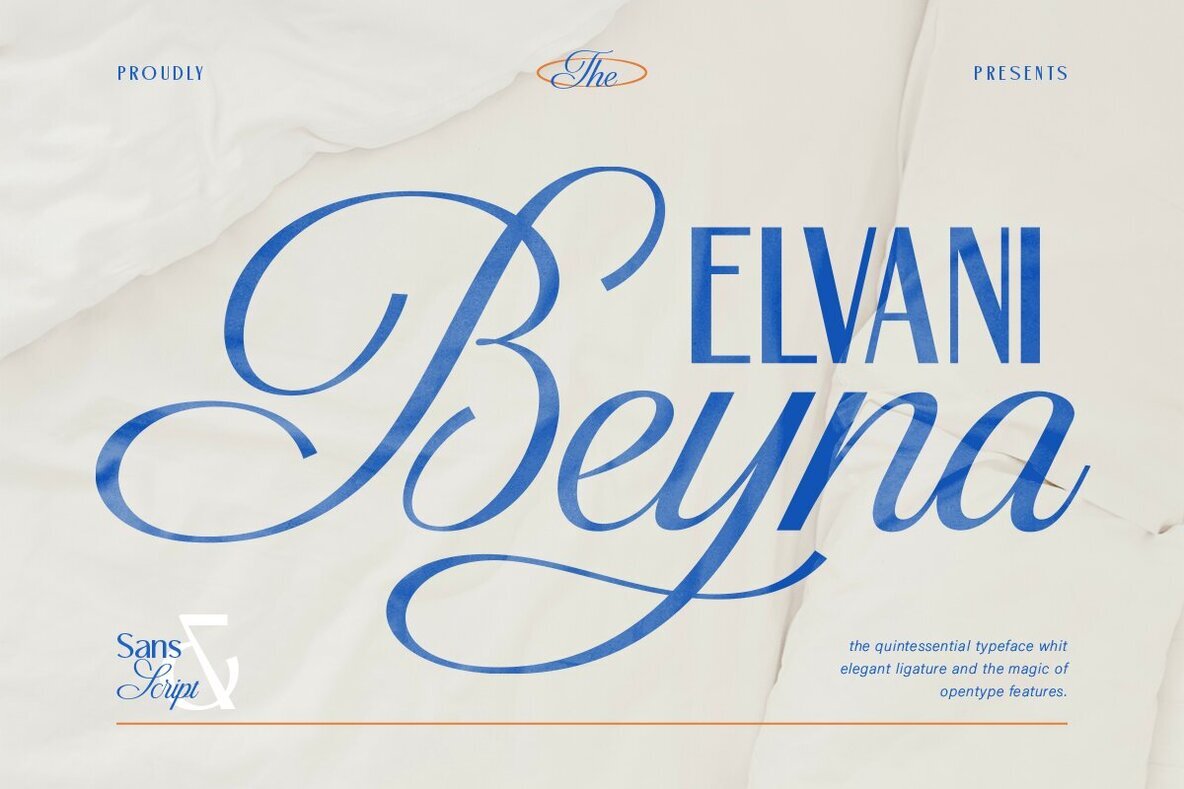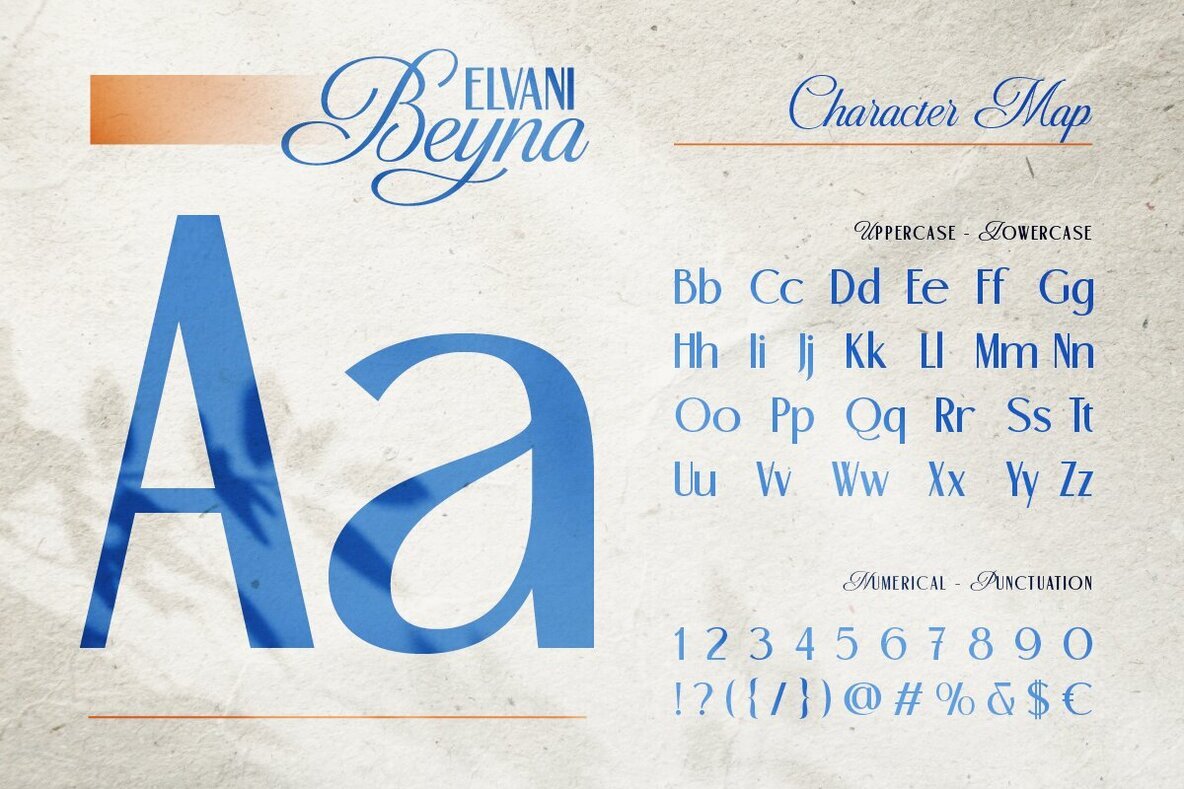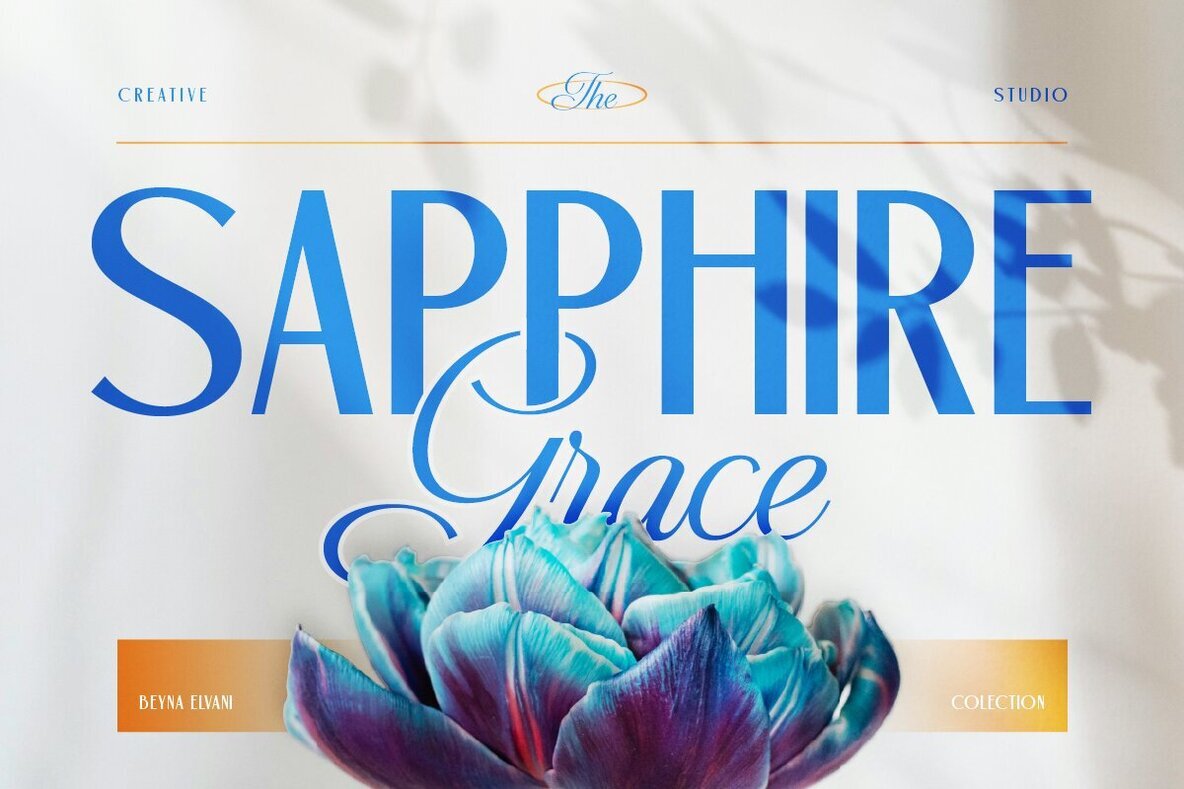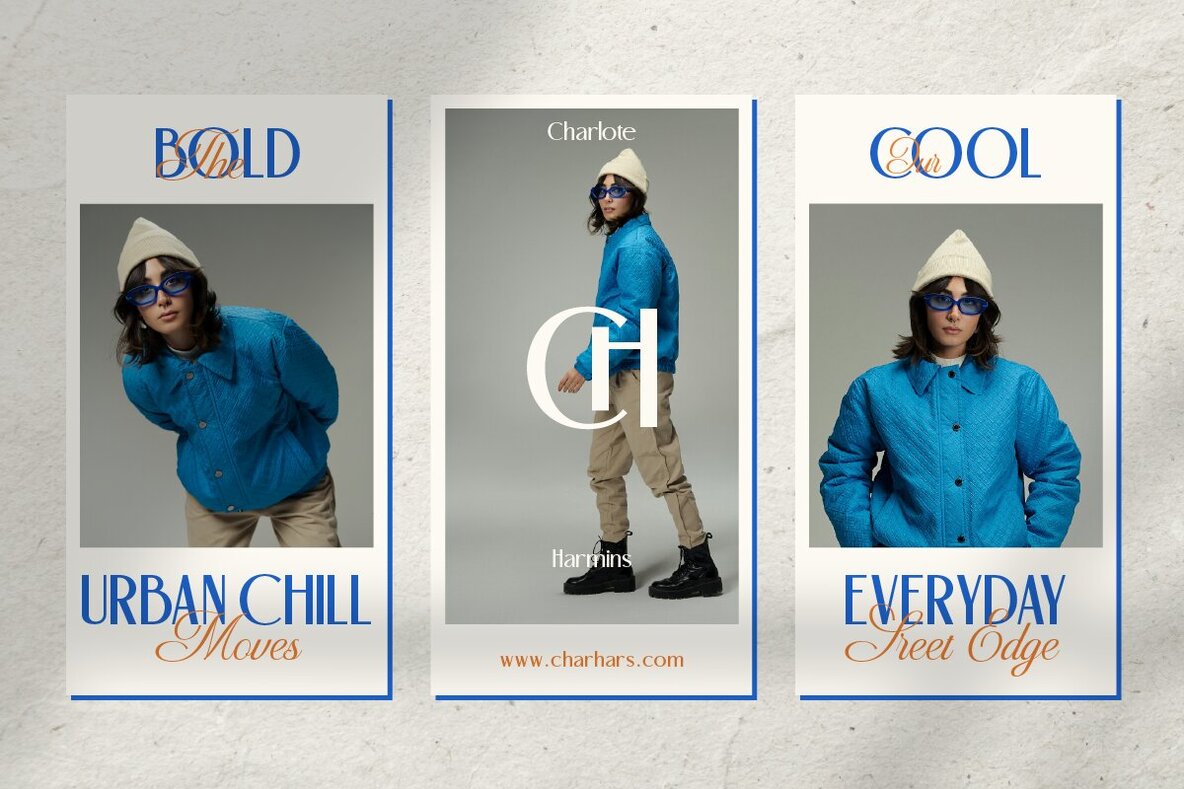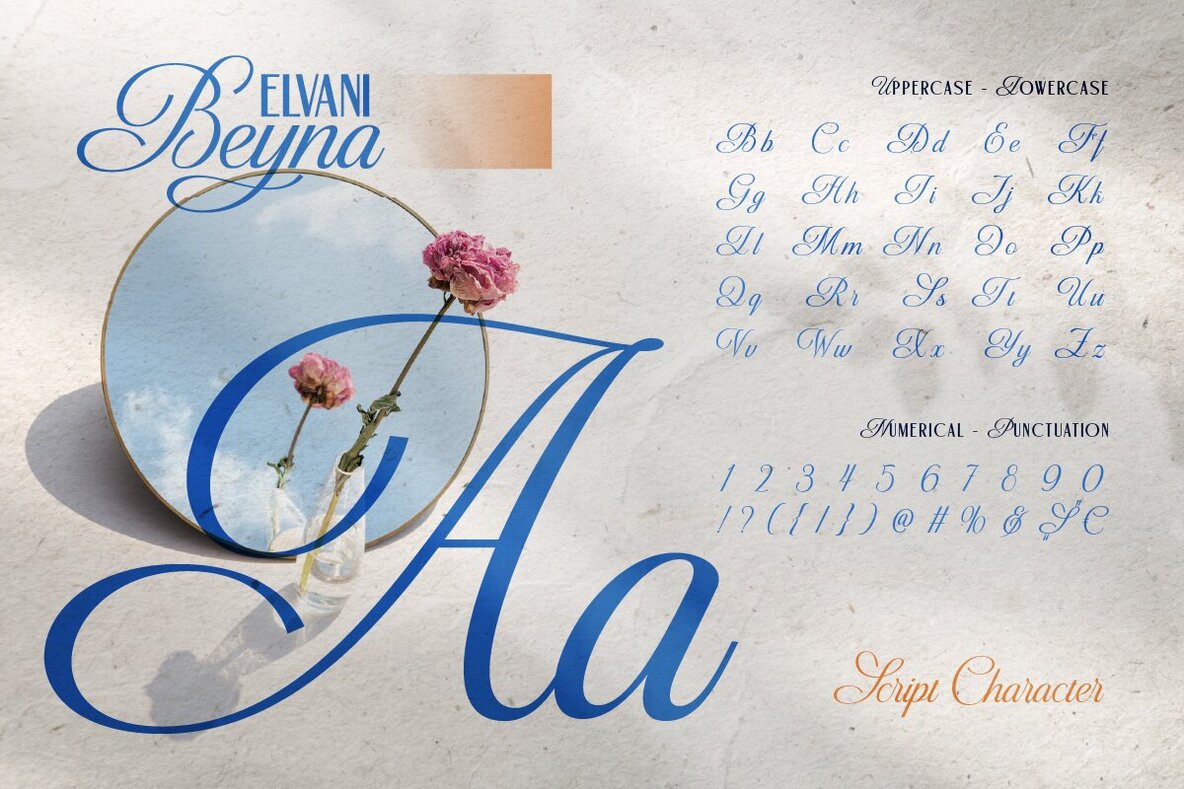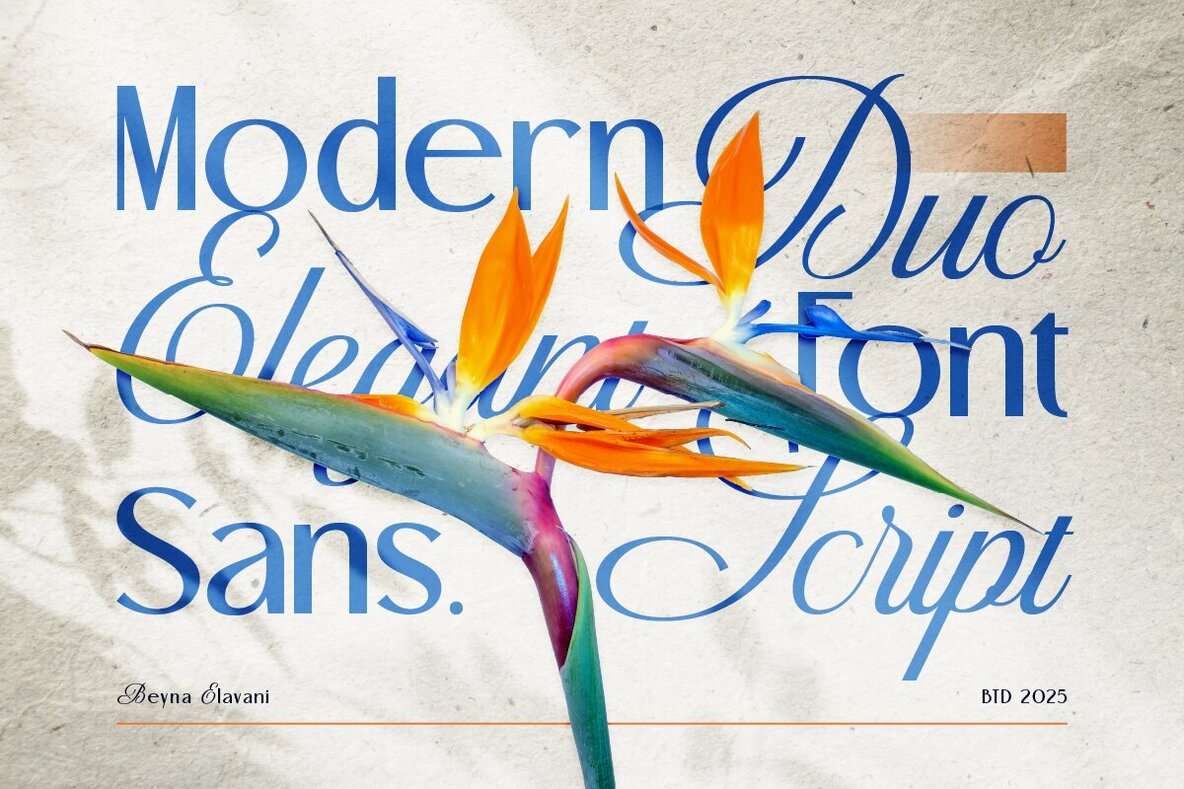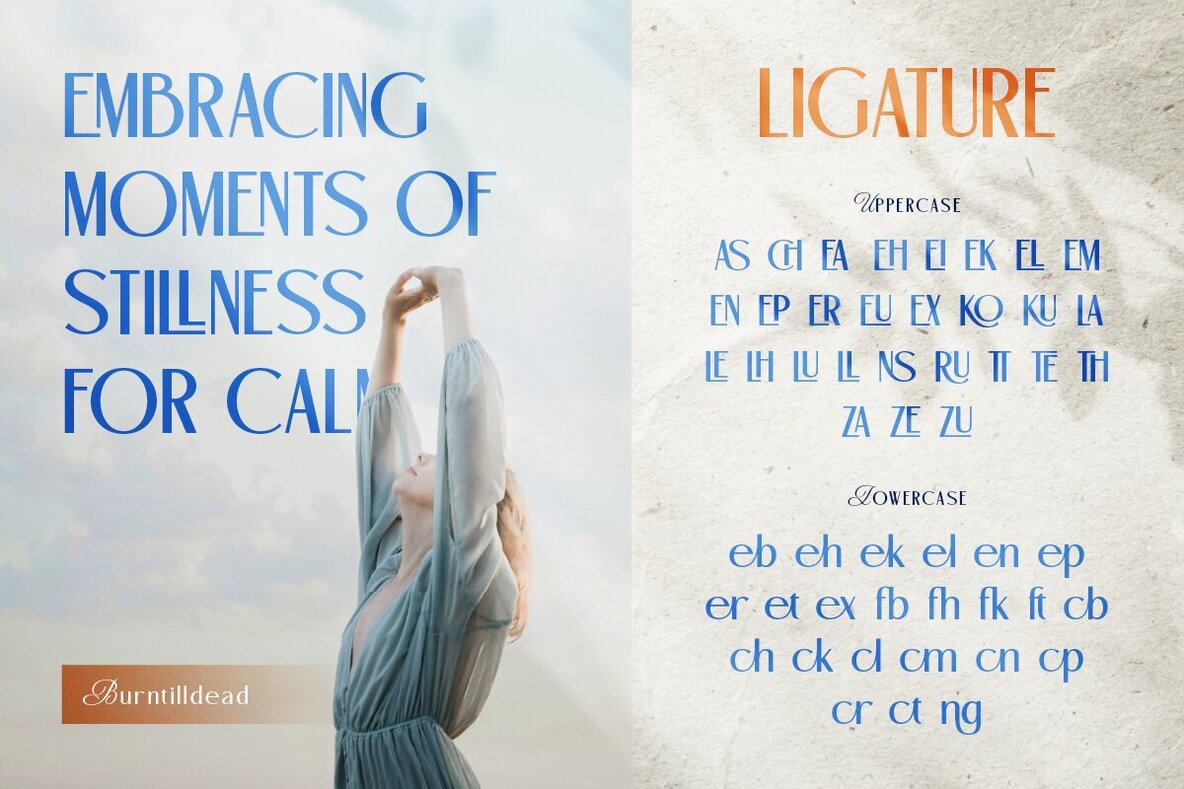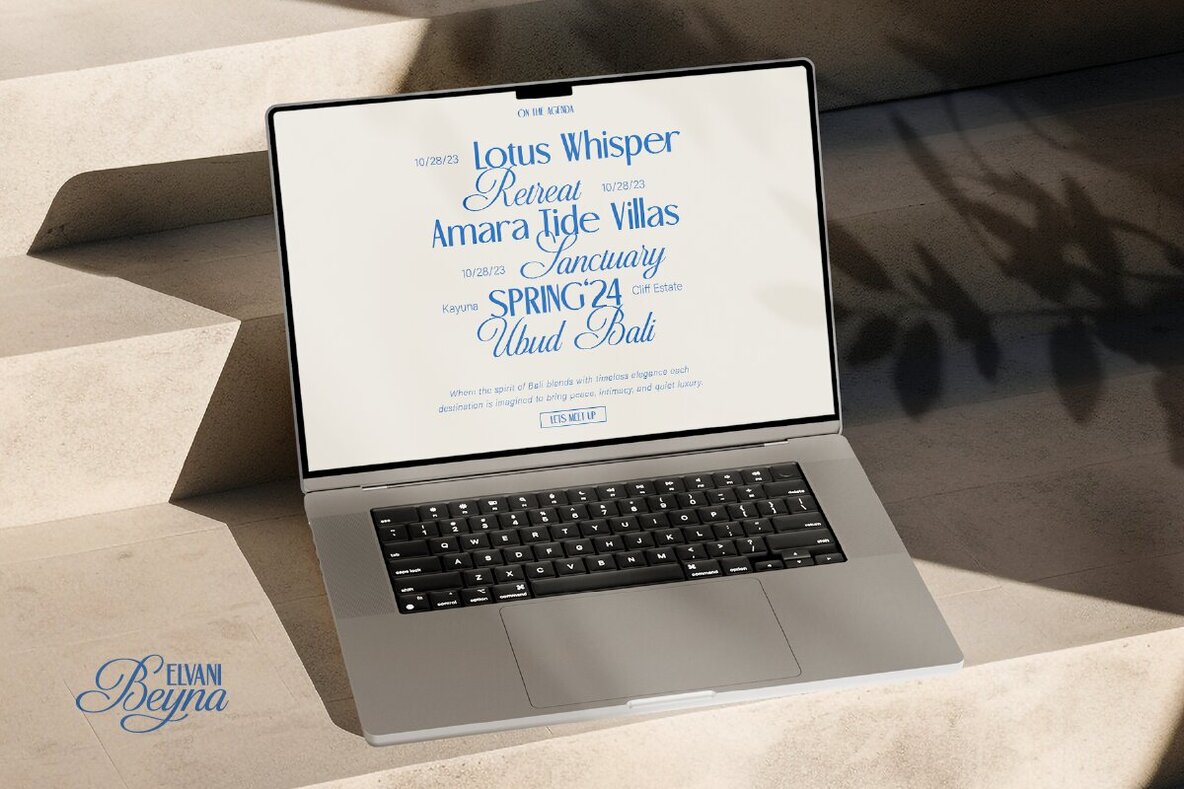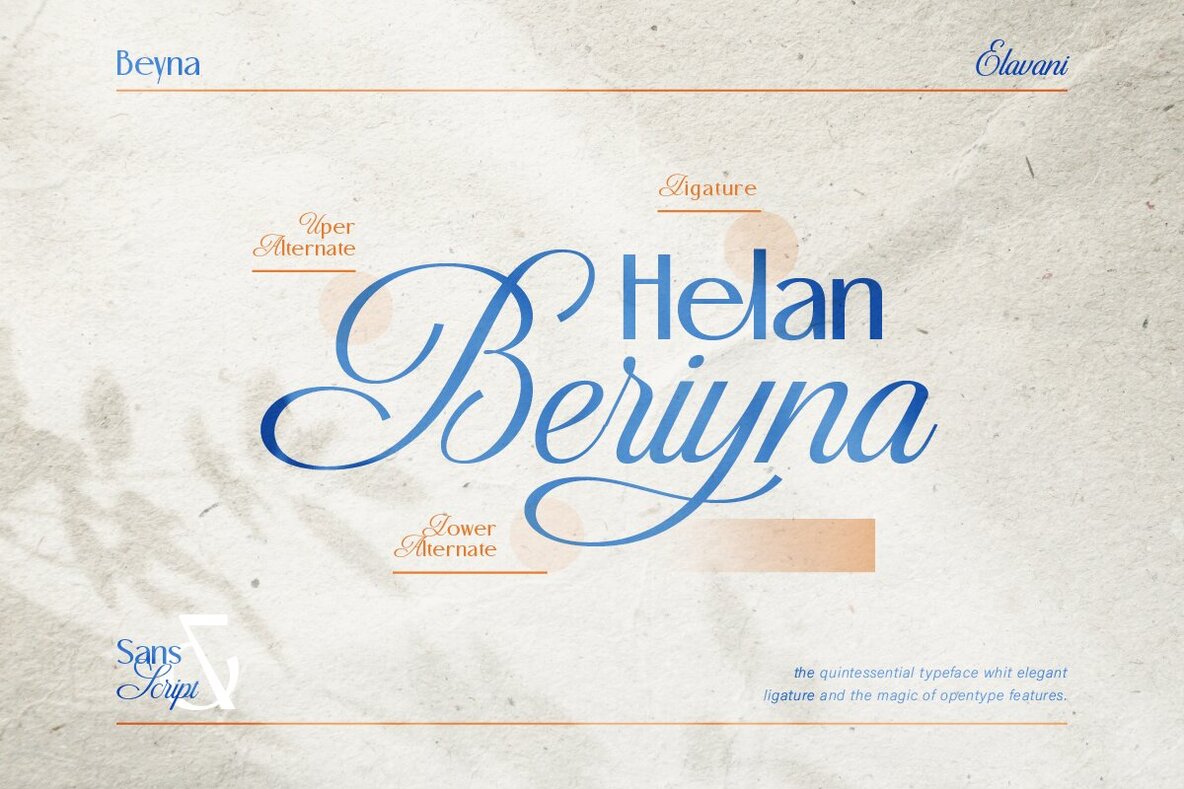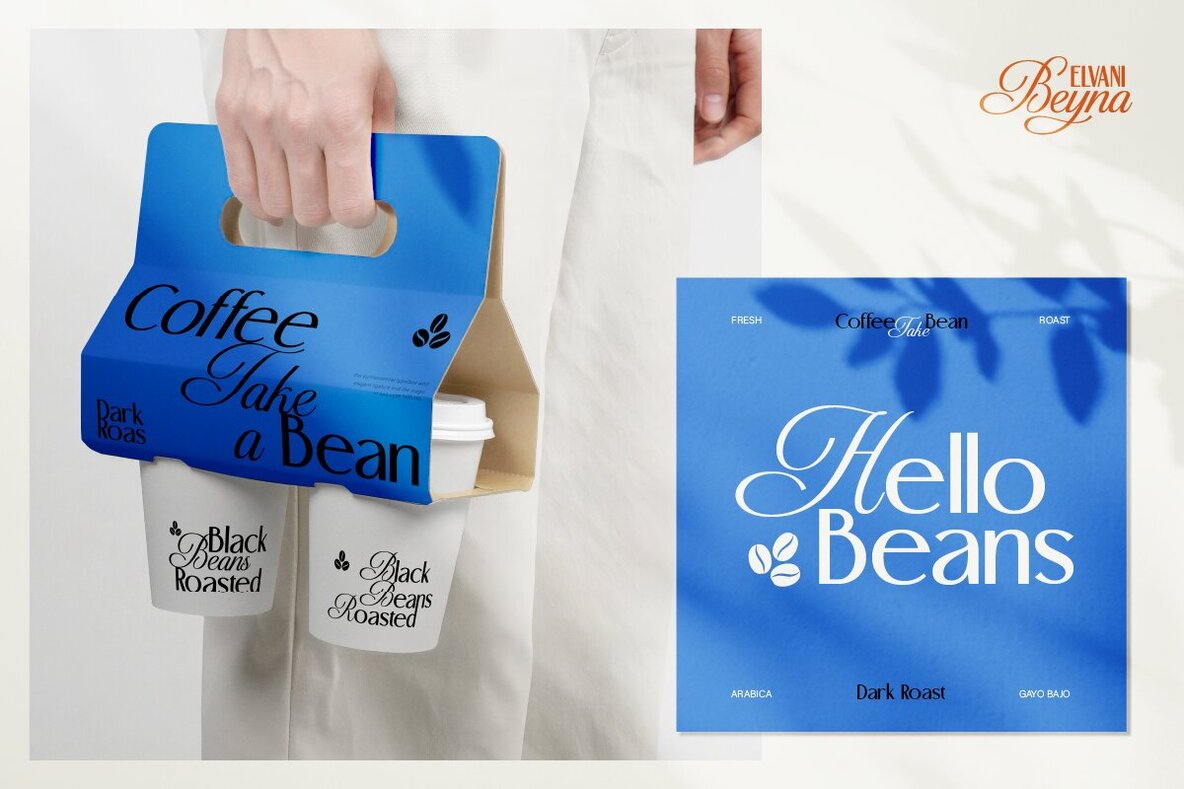
Beyna Elvani Font
Beyna Elavani Regular
Beyna Elavani Script
Experience the perfect union of elegance and modernity with the Beyna Elvani font duo. This typeface blends Beyna, a flowing and graceful script, with Elvani, a clean and stylish sans serif. Together, they offer an exquisite balance of sophistication and readability. Beyna enchants with its smooth curves and delicate ligatures, making it ideal for luxurious, handwritten elements like logos, wedding invitations, and branding. Meanwhile, Elvani introduces a sharp, minimal style perfect for contemporary layouts, headlines, and body text. Beyna Elvani's unique charm lies in the seamless harmony between its two styles. Use the script for highlighting names or special features while the sans serif ensures your design remains neat and professional. Ideal for fashion, lifestyle, beauty brands, or editorial projects, this font duo promises timeless and trendy designs.Beyna Elvani Typeface Duo